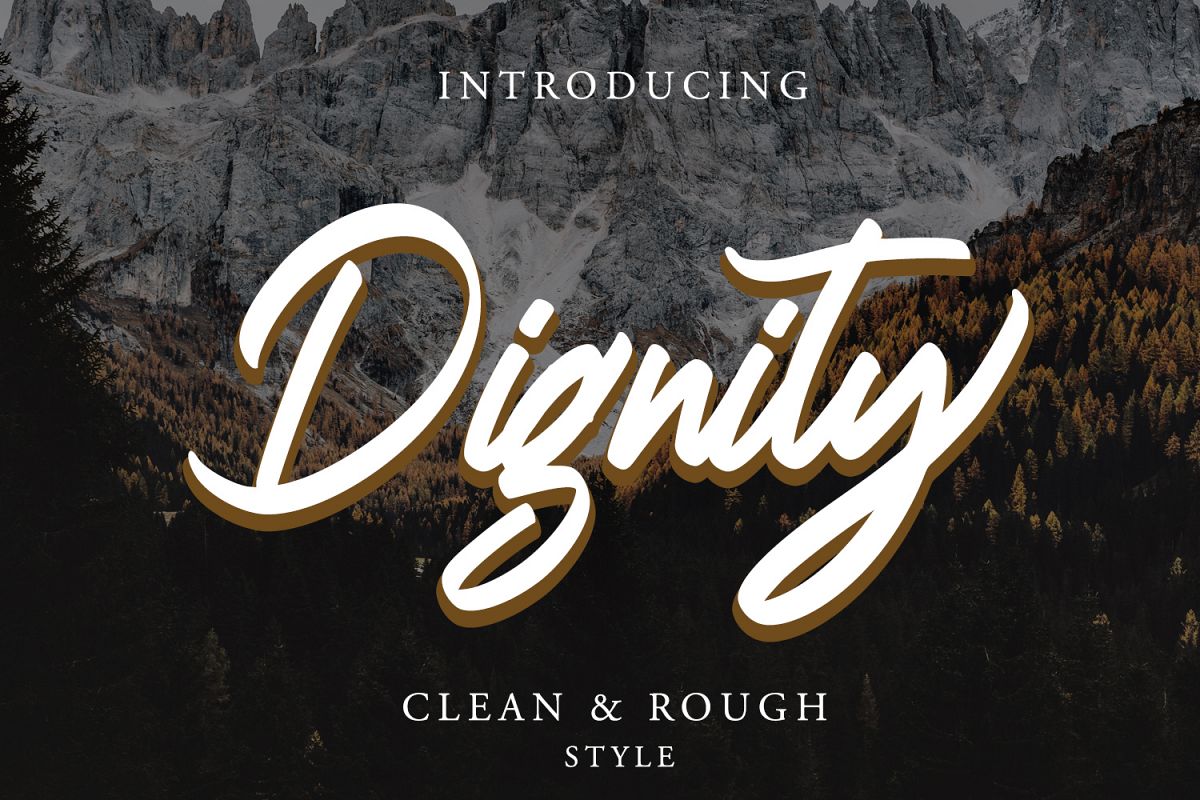
Dignity Brush Typeface
Dignity Clean
Dignity Rough
DignityHandbrush Script Font with 2 style is a font with distinctive handwritten characters perfect for branding projects, logos, wedding designs, media posts, advertisements, product packaging, product designs, labels, photography, watermarks, invitations, stationery, and any project who need handwritten dishes.